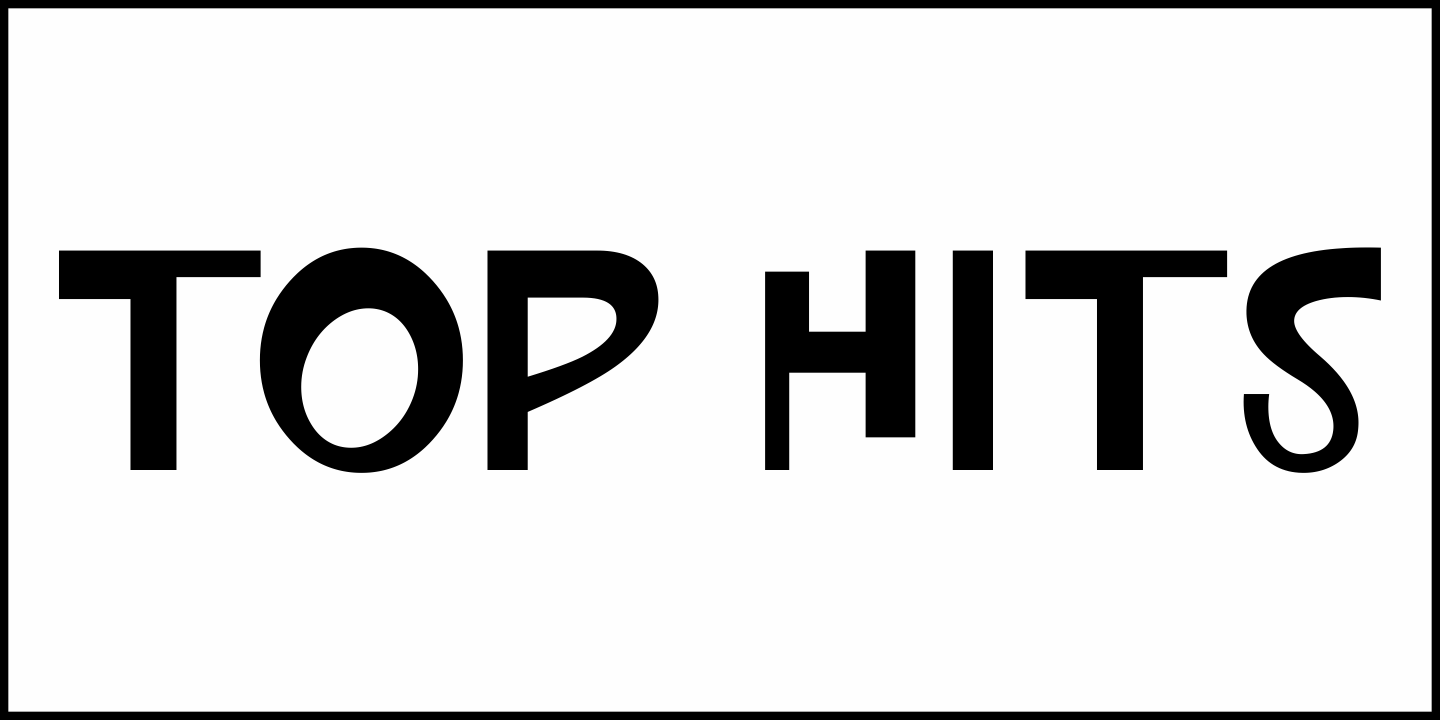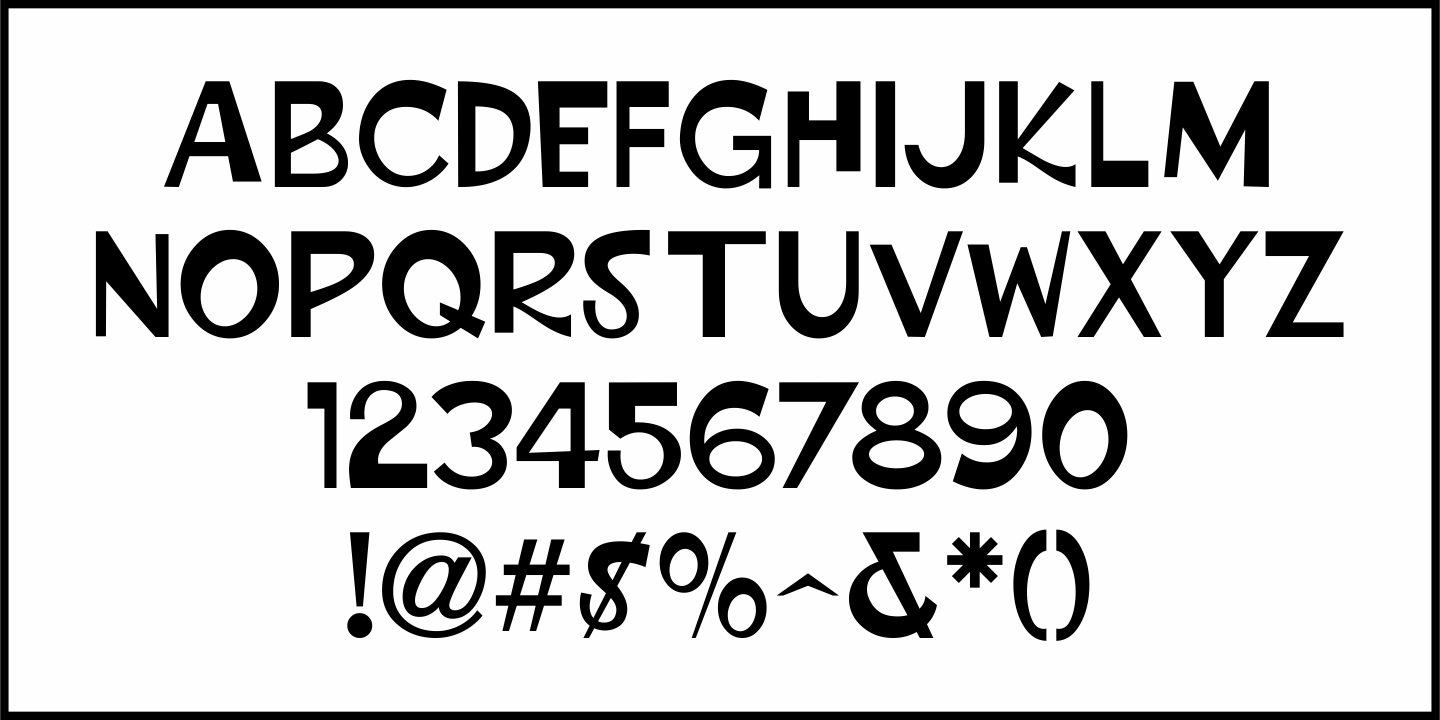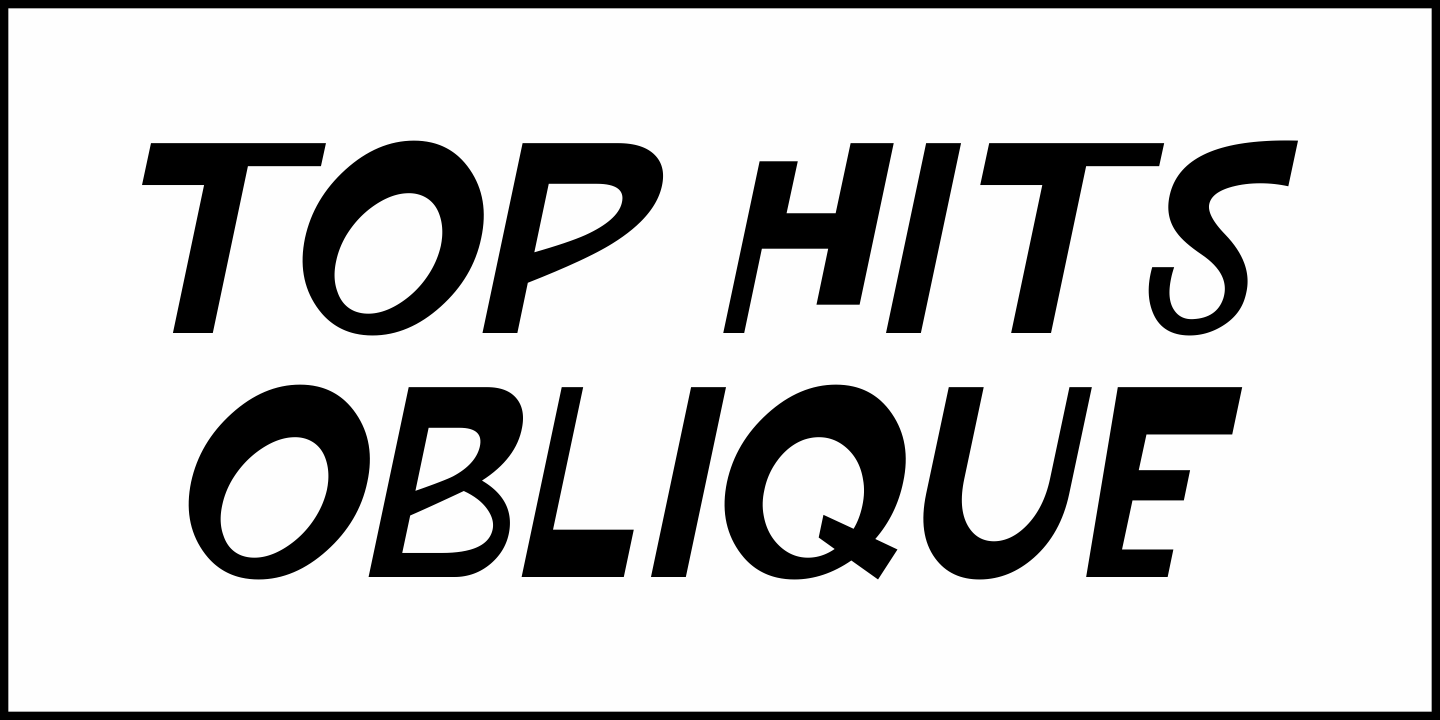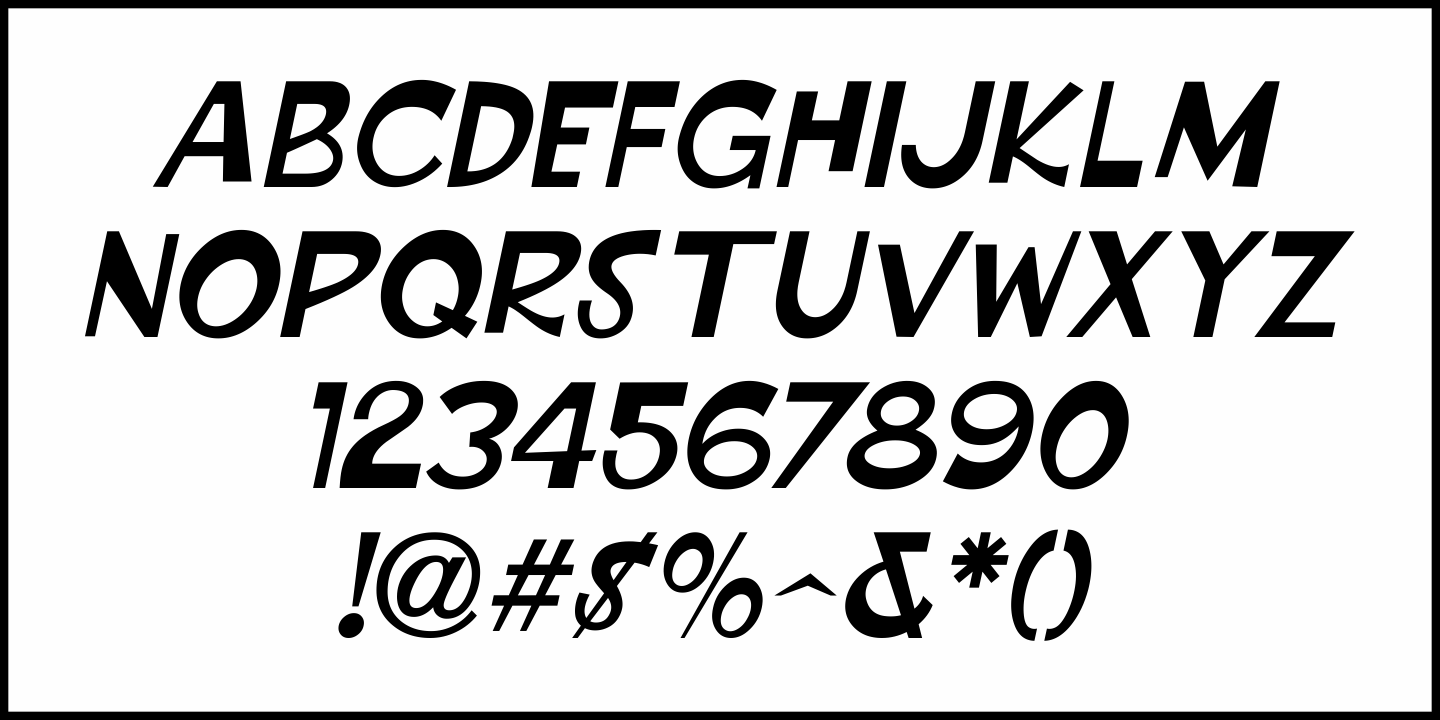
Top Hits
In the December 4, 1961 issue of Broadcasting magazine was an ad for radio station WRVA in Richmond, Virginia.  The free form, casual sans serif hand lettering featured in that ad inspired Top Hits JNL, which is available in both regular and oblique versions.
Top Hits Regular by Jeff Levine Fonts